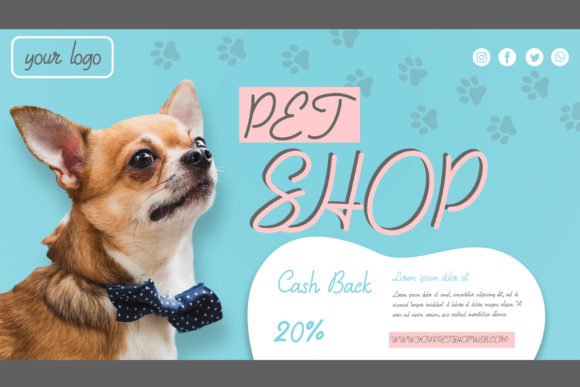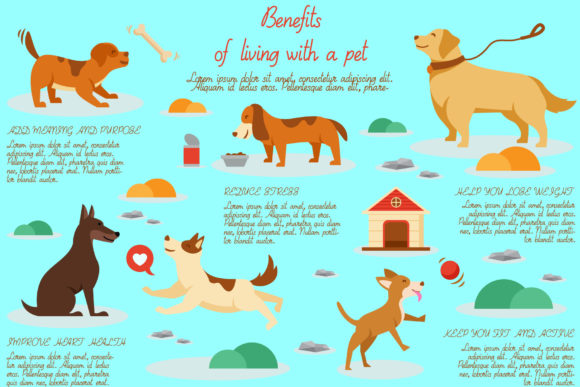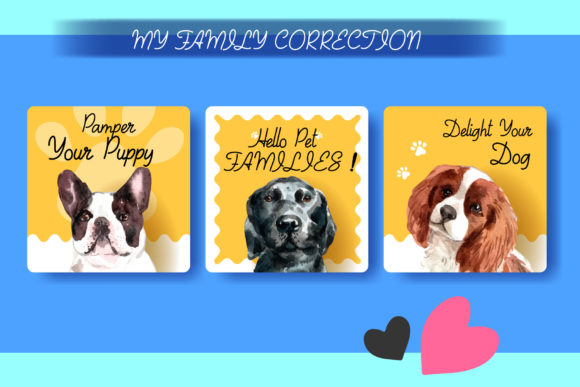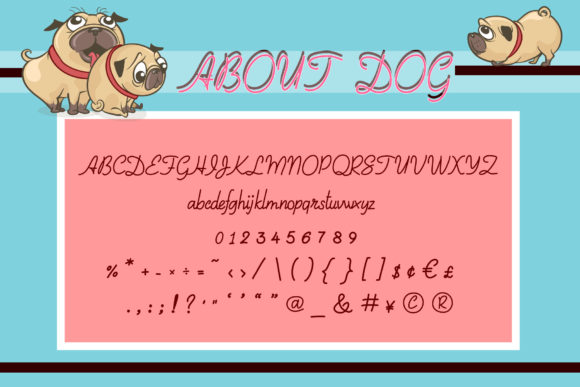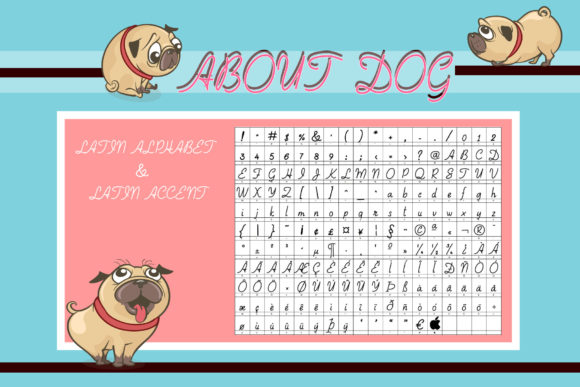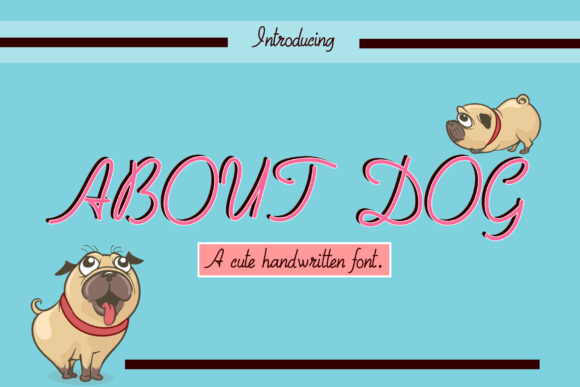
About Dog Font: A Sweet and Cursive Handwritten Font
Are you looking for a font that can add a touch of warmth and personality to your design projects? Look no further than the About Dog font! This beautiful, cursive handwritten font is perfect for designers and crafters who want to create stunning and eye-catching designs. In this article, we’ll take a closer look at the About Dog font, its features, and how you can use it to elevate your design projects.
What is About Dog Font?
About Dog is a sweet and cursive handwritten font that is designed to add a joyful and romantic touch to your designs. This gentle font is perfect for a variety of design ideas, from wedding invitations and greeting cards to social media graphics and blog posts. Its elegant and flowing lines make it a versatile font that can be used for both personal and professional projects.
Key Features of About Dog Font
The About Dog font has several key features that make it a great choice for designers and crafters. Some of its notable features include:
- Sweet and Cursive Design: The About Dog font has a beautiful, cursive design that is perfect for creating elegant and sophisticated designs.
- Handwritten Style: This font has a handwritten style that gives it a personal and unique touch.
- Easy to Read: The About Dog font is easy to read, making it perfect for body text and headings.
- Versatile: This font can be used for a variety of design projects, from print to digital media.
How to Use About Dog Font
The About Dog font is easy to use and can be incorporated into a variety of design projects. Here are some ideas to get you started:
- Wedding Invitations: Use the About Dog font to create beautiful and elegant wedding invitations that will set the tone for your special day.
- Greeting Cards: This font is perfect for creating greeting cards for special occasions such as birthdays, anniversaries, and holidays.
- Social Media Graphics: Use the About Dog font to create stunning social media graphics that will help you stand out from the crowd.
- Blog Posts: Add a touch of elegance to your blog posts with the About Dog font.
Tips for Using About Dog Font
Here are some tips for using the About Dog font:
- Pair it with Other Fonts: The About Dog font can be paired with other fonts to create a unique and interesting design.
- Use it for Headings and Titles: This font is perfect for headings and titles, but can also be used for body text.
- Experiment with Colors: The About Dog font looks great in a variety of colors, so don’t be afraid to experiment and find the perfect color for your design.
The About Dog font is a beautiful and versatile font that can add a touch of warmth and personality to your design projects. Its sweet and cursive design makes it perfect for a variety of design ideas, from wedding invitations and greeting cards to social media graphics and blog posts. With its easy-to-read design and handwritten style, this font is sure to become a favorite among designers and crafters.